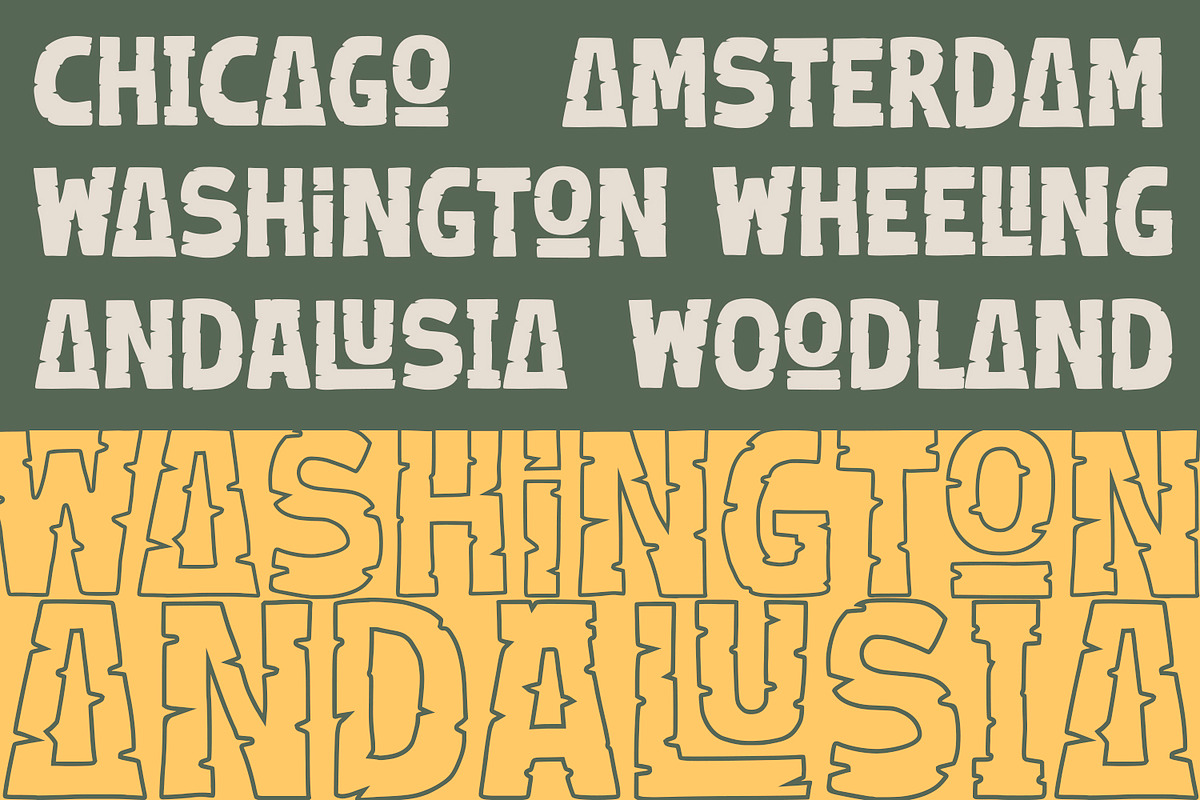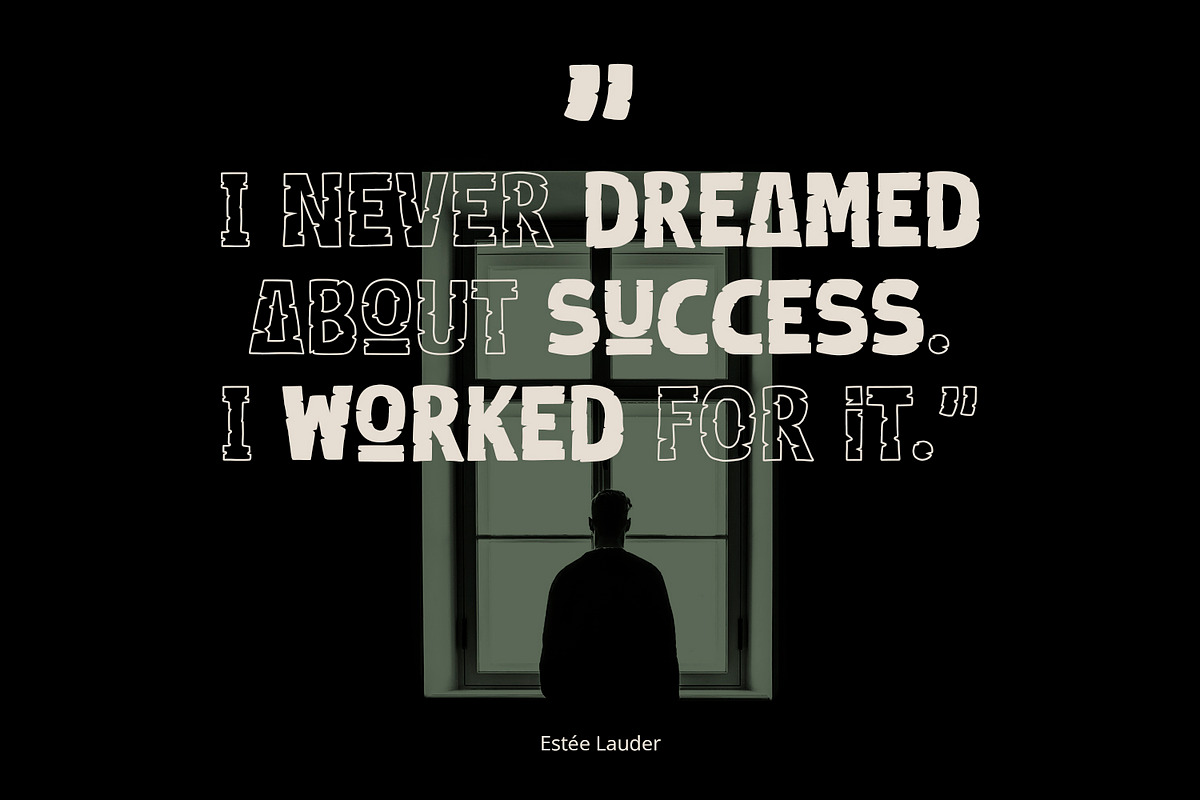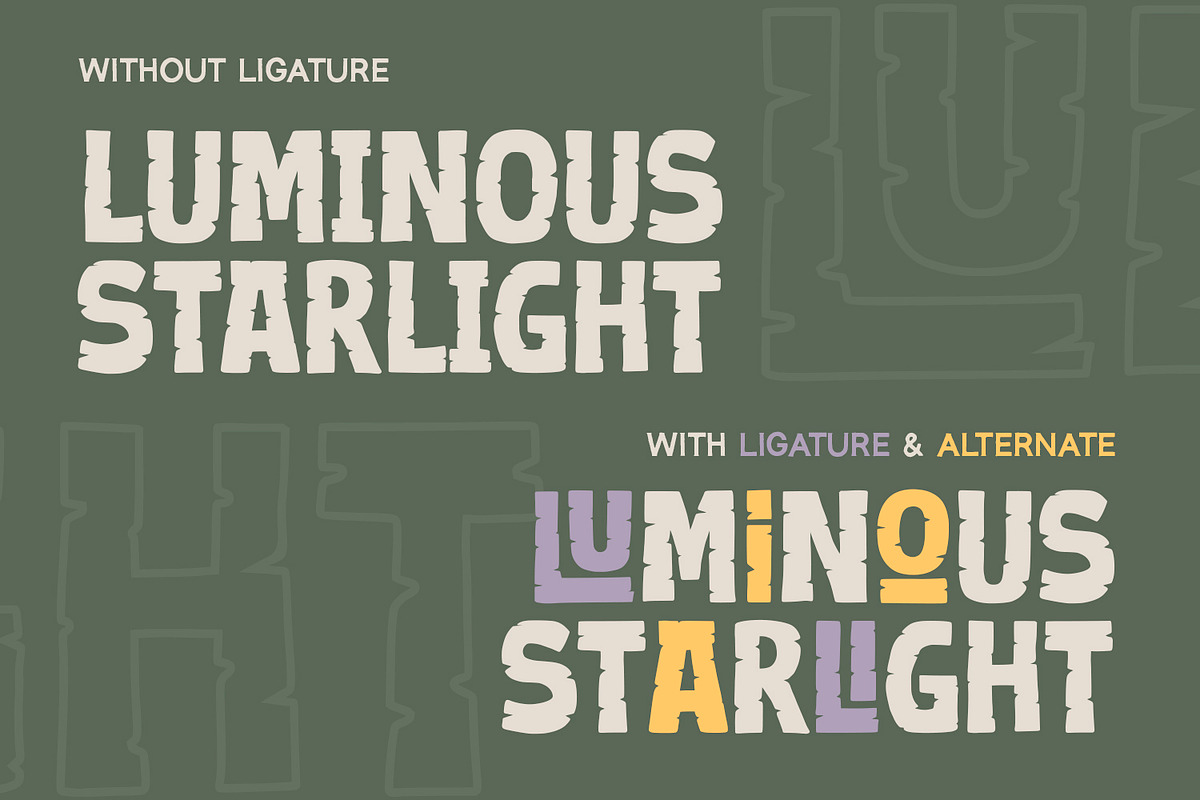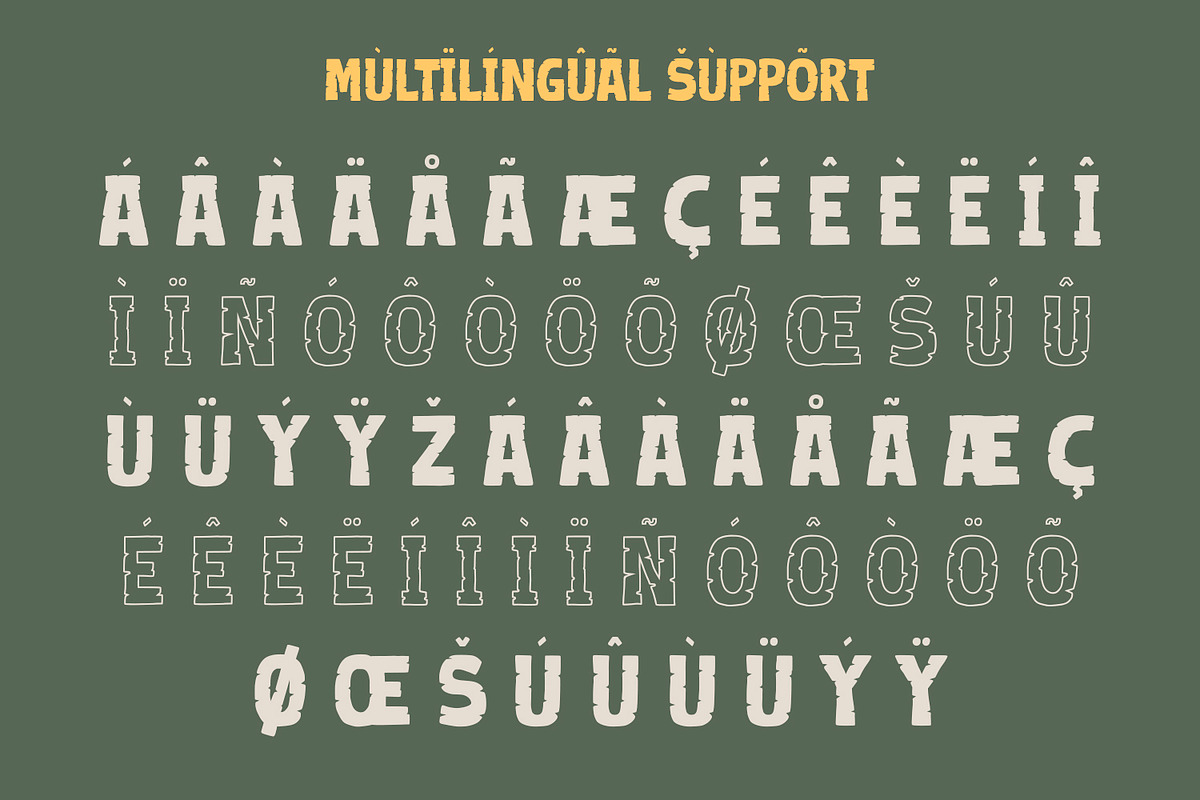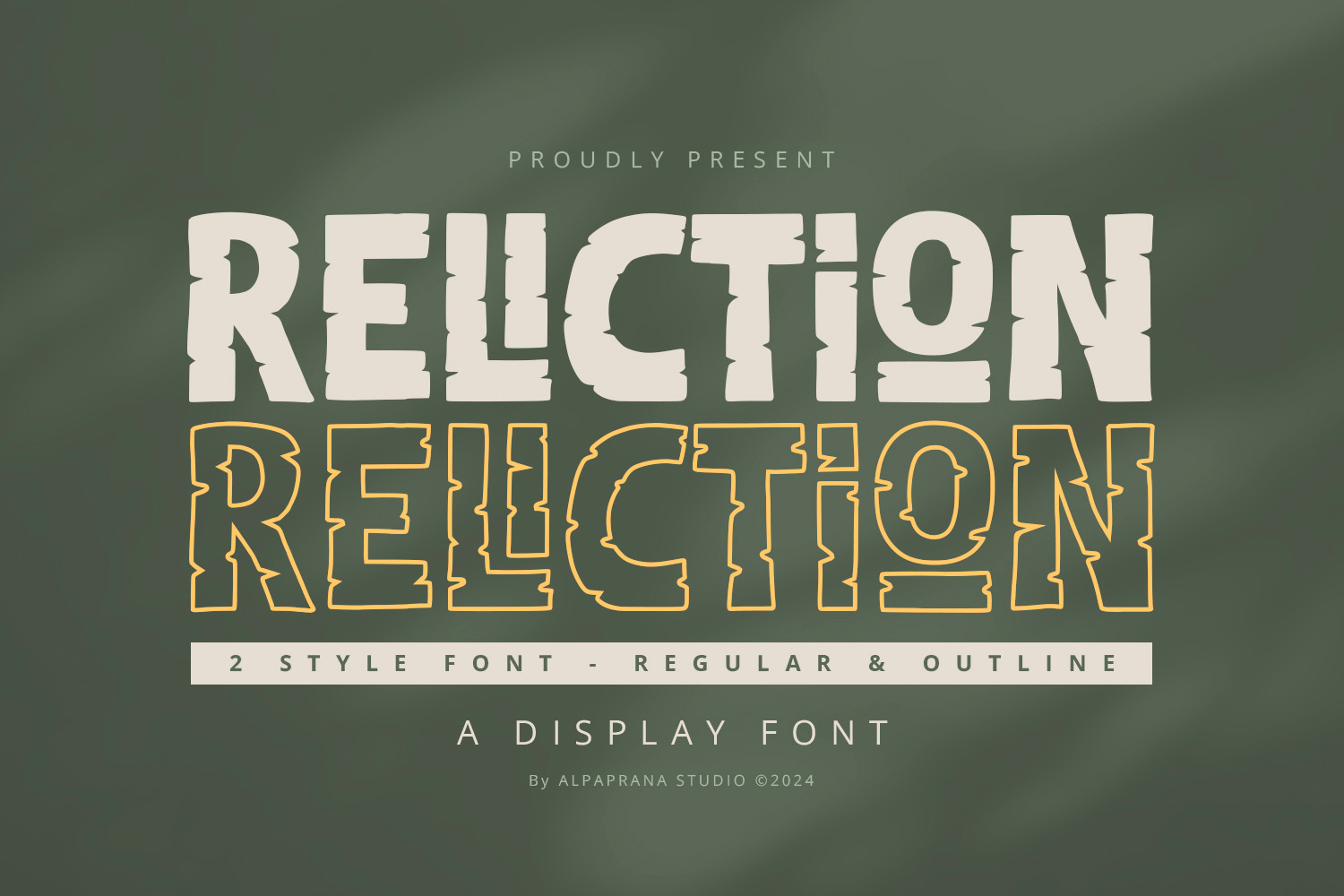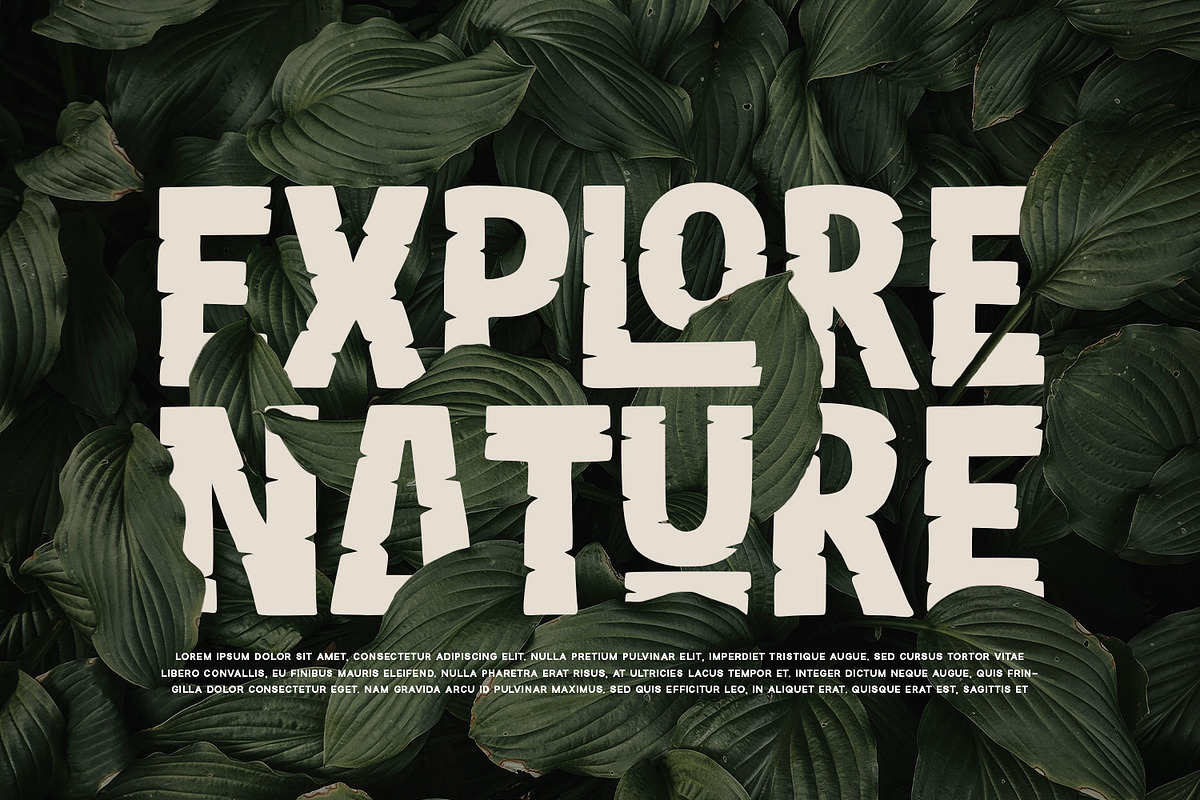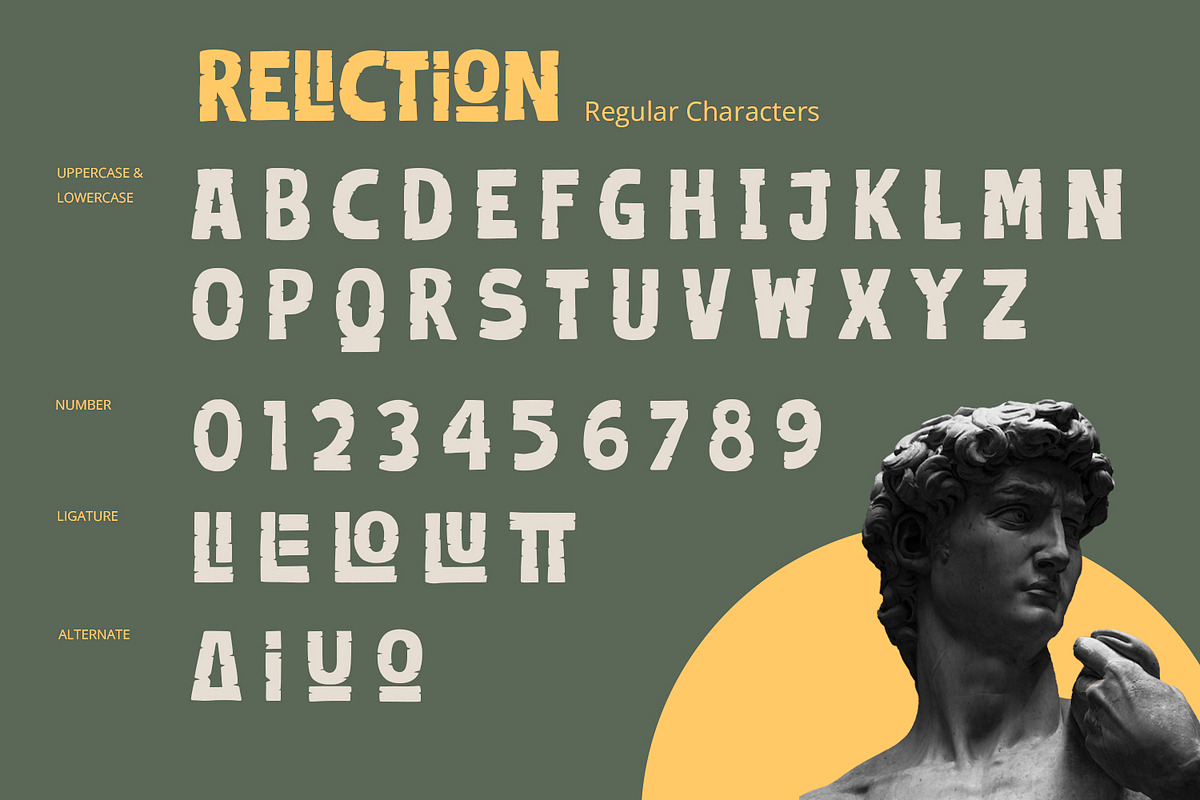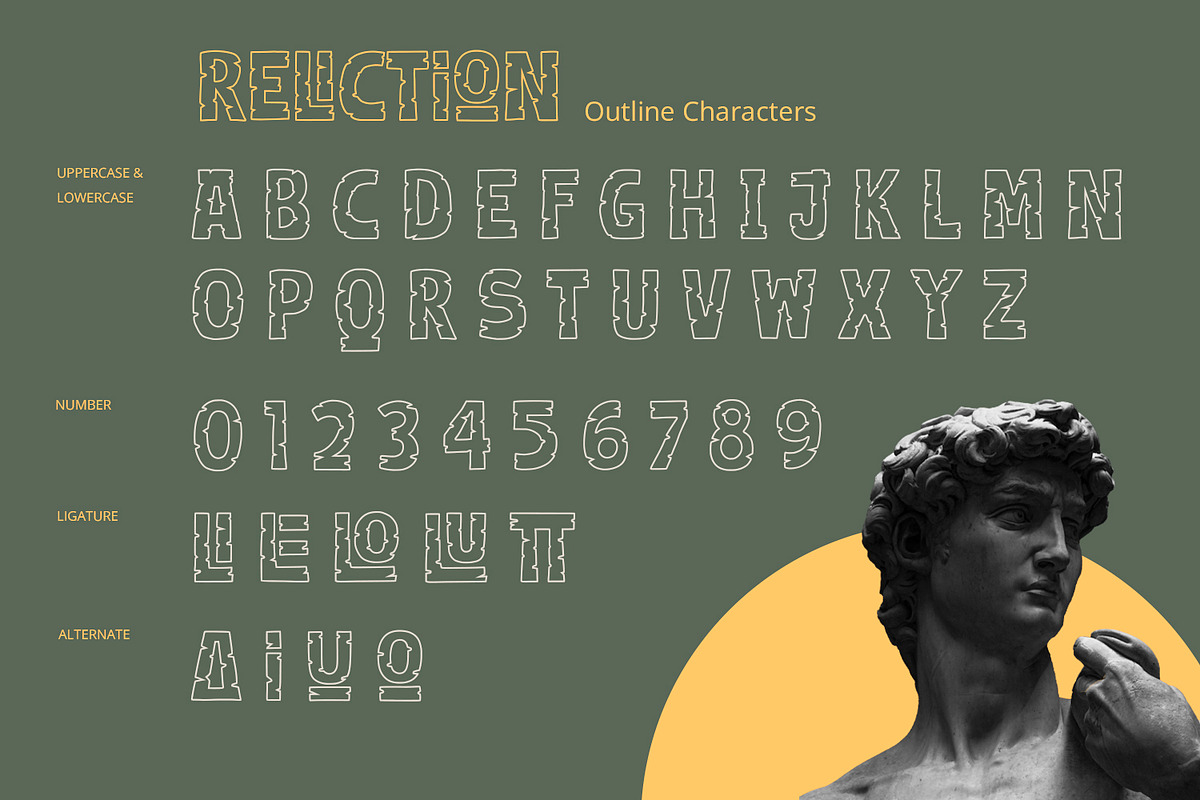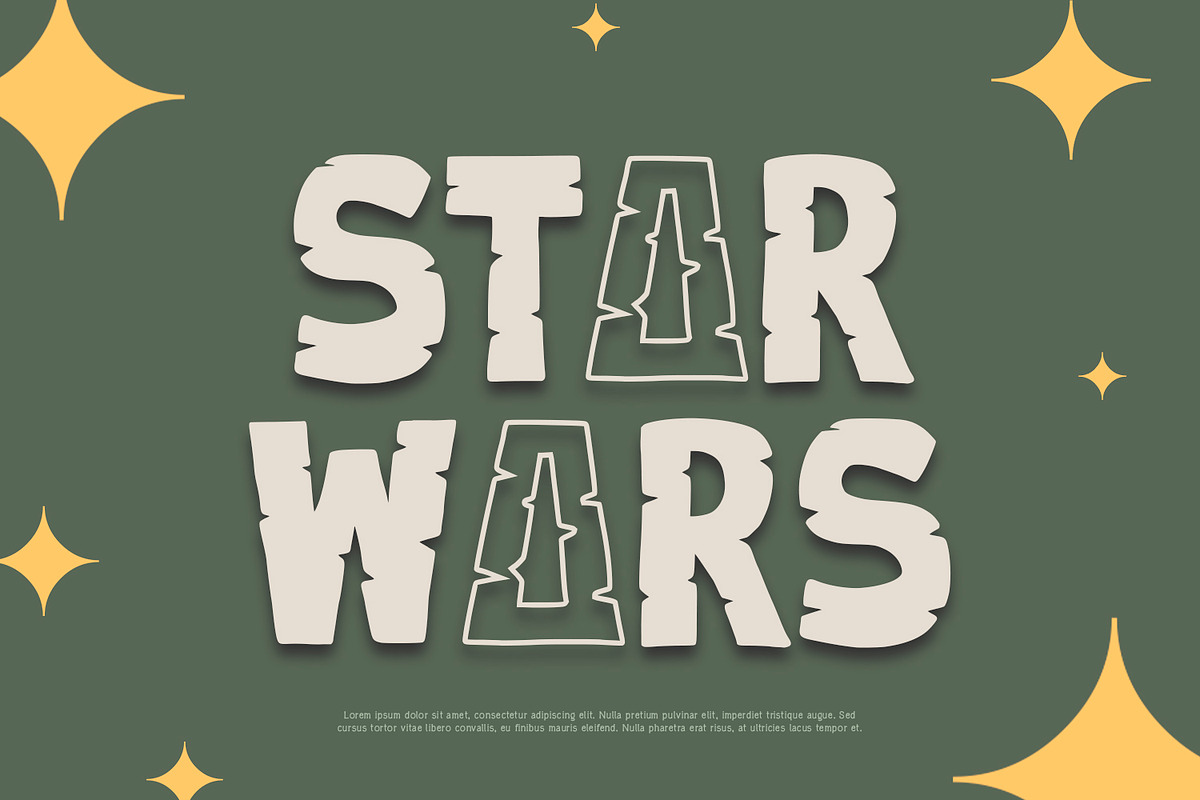
Reliction - Display Font
Reliction is display font with elegant and modern feels. It will be perfectly used for Branding, Logo Design, Lettering, Logotype, Clothing, Poster, magazine, packaging, posters, shopping bags, t-shirts, book covers, photography, special events and other design project.